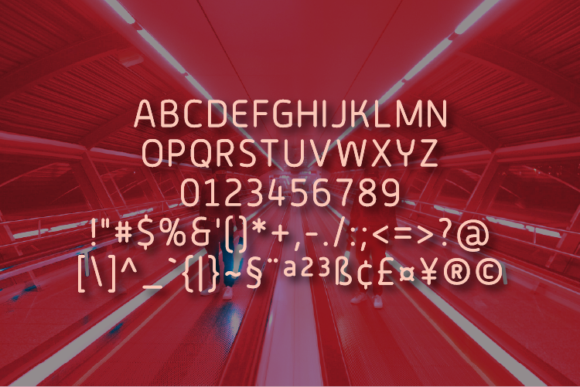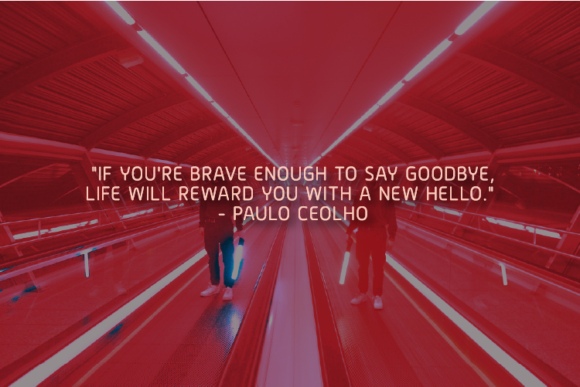
Discover the Versatility of Geoface Font: A Simple yet Impactful Sans Serif
In the world of typography, a font can make all the difference in the success of a design project. Whether you’re a seasoned designer or a crafty DIY enthusiast, finding the right font can be a daunting task. That’s where Geoface comes in – a simple, tall sans serif font that’s quickly becoming a favorite among designers and crafters alike. In this article, we’ll dive into the world of Geoface and explore its unique characteristics, uses, and benefits.
What is Geoface Font?
Geoface is a sleek and modern sans serif font that’s perfect for a wide range of design projects. Its neat and clean style makes it an excellent choice for those looking for a font that’s both simple and impactful. With its tall and slender lines, Geoface exudes a sense of elegance and sophistication, making it suitable for everything from logos and branding to headings and body text.
Key Features of Geoface Font
- Simple and Clean Design: Geoface boasts a minimalist design that’s free from unnecessary embellishments, making it easy to read and versatile.
- Tall and Slender Lines: The font’s tall lines give it a unique and distinctive look that’s perfect for headlines, titles, and other display text.
- Sans Serif Style: Geoface’s sans serif style makes it perfect for digital and print designs, ensuring it remains legible and clear on various platforms.
- Wide Range of Uses: From logos and branding to websites, posters, and crafts, Geoface is an excellent choice for any design project.
Benefits of Using Geoface Font
So, why choose Geoface over other fonts? Here are just a few benefits of using Geoface in your design projects:
- Versatility: Geoface’s simple and clean design makes it suitable for a wide range of projects, from minimalist designs to more complex and detailed work.
- Legibility: The font’s clear and concise lines ensure that your text remains easy to read, even at smaller sizes.
- Elegance: Geoface’s tall and slender lines give it an air of sophistication and elegance, making it perfect for designs that require a touch of class.
- Easy to Pair: Geoface pairs well with a variety of other fonts, making it easy to create harmonious and visually appealing designs.
Who Can Benefit from Geoface Font?
Geoface is an excellent choice for a wide range of designers and crafters, including:
- Graphic Designers: Geoface is perfect for graphic designers looking for a simple yet impactful font for their designs.
- Web Designers: The font’s clean and concise lines make it an excellent choice for web designers looking for a font that’s optimized for digital use.
- Crafters: Geoface is a great choice for crafters who want to add a touch of elegance and sophistication to their DIY projects.
- Marketing and Branding Professionals: The font’s versatility and legibility make it an excellent choice for marketing and branding professionals looking for a font that can help them create a strong brand identity.
In conclusion, Geoface is a simple yet impactful sans serif font that’s perfect for a wide range of design projects. Its neat and clean style, tall and slender lines, and versatility make it an excellent choice for designers and crafters alike. Whether you’re looking for a font for a logo, website, or DIY project, Geoface is definitely worth considering. So why not give it a try and see how it can elevate your designs to the next level?
With Geoface, you can create stunning designs that are both visually appealing and effective. Its simplicity and elegance make it a great addition to any design project, and its versatility ensures that it can be used in a variety of contexts. So don’t hesitate – explore the world of Geoface today and discover the difference it can make in your designs!